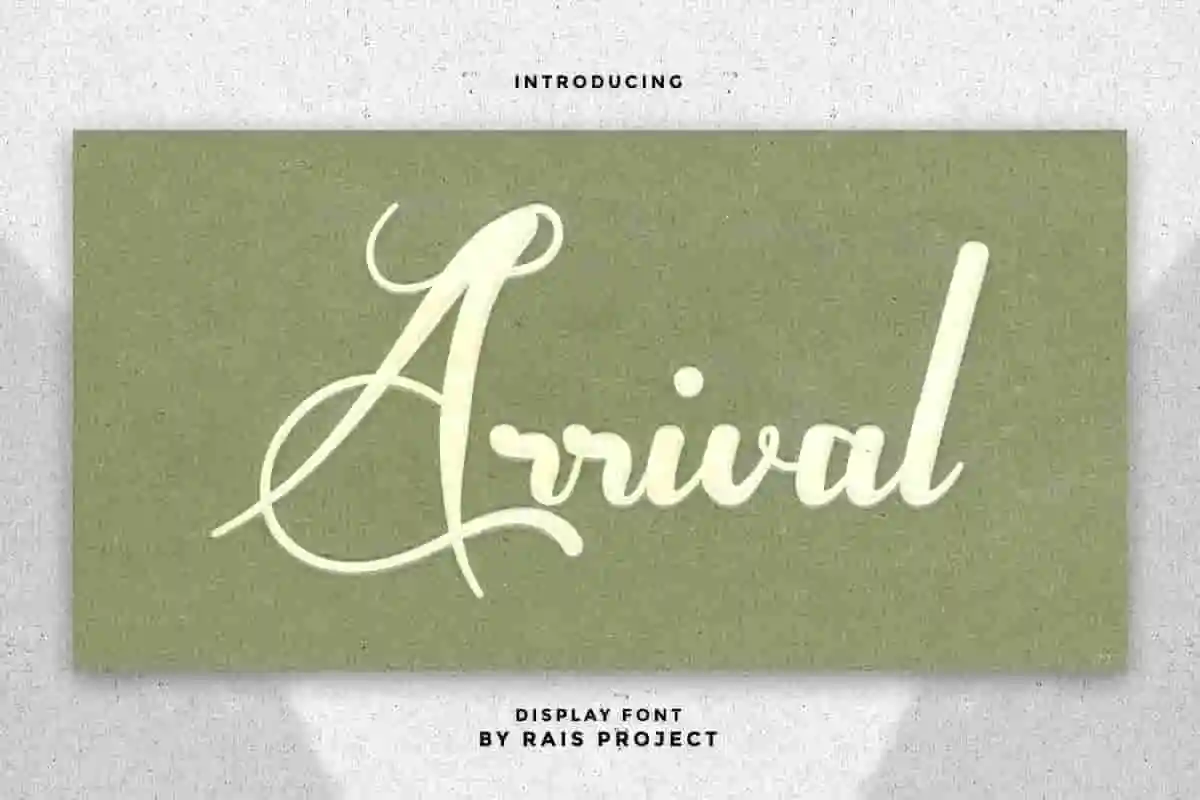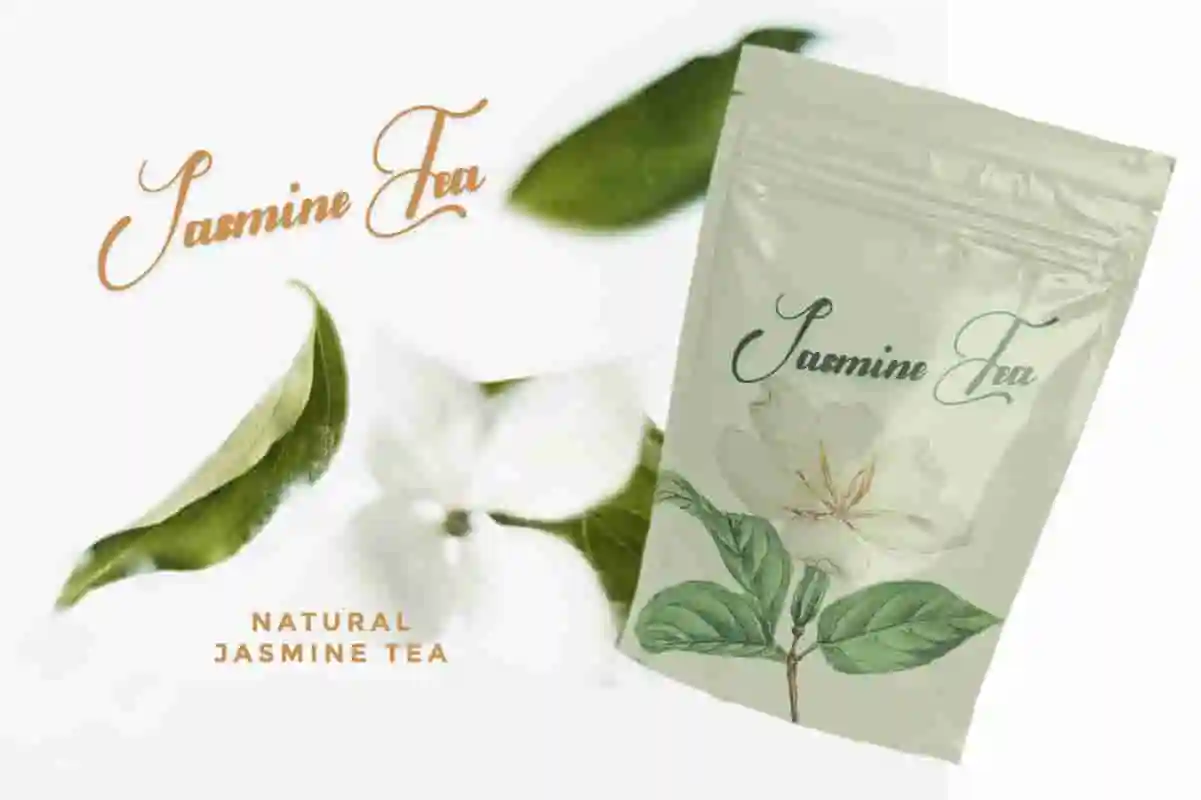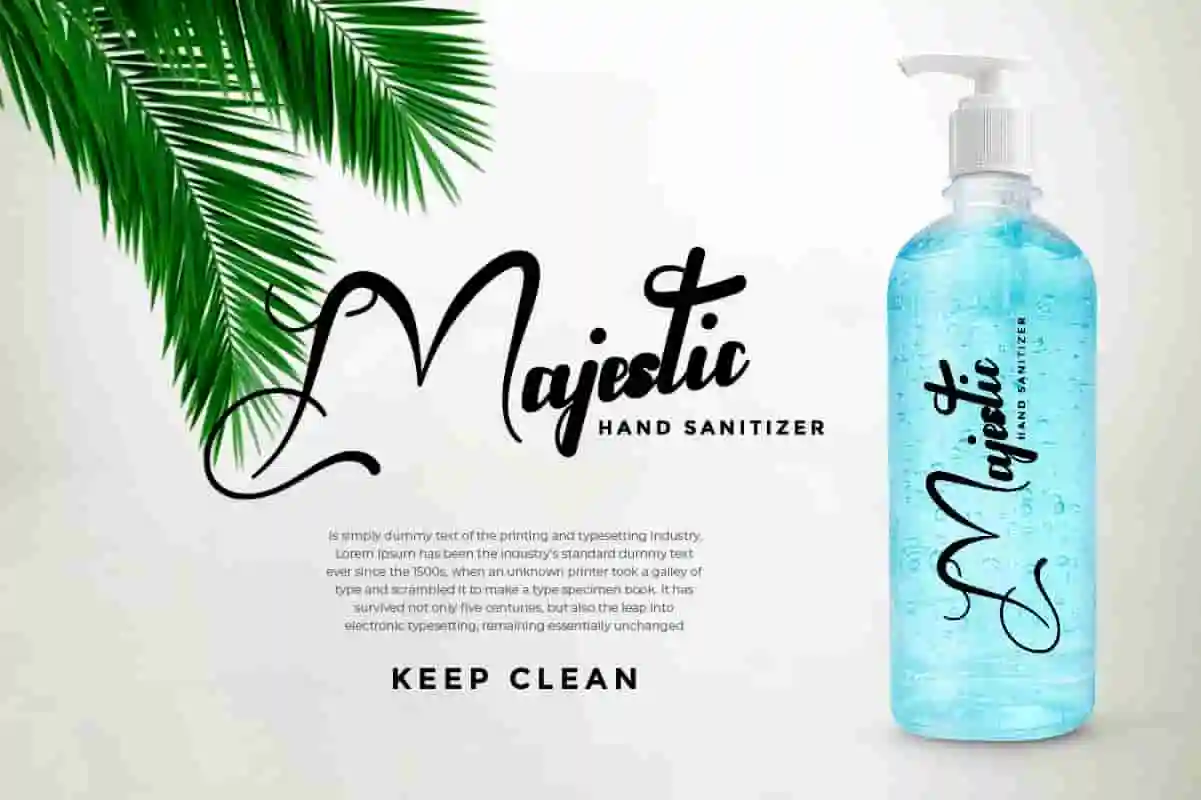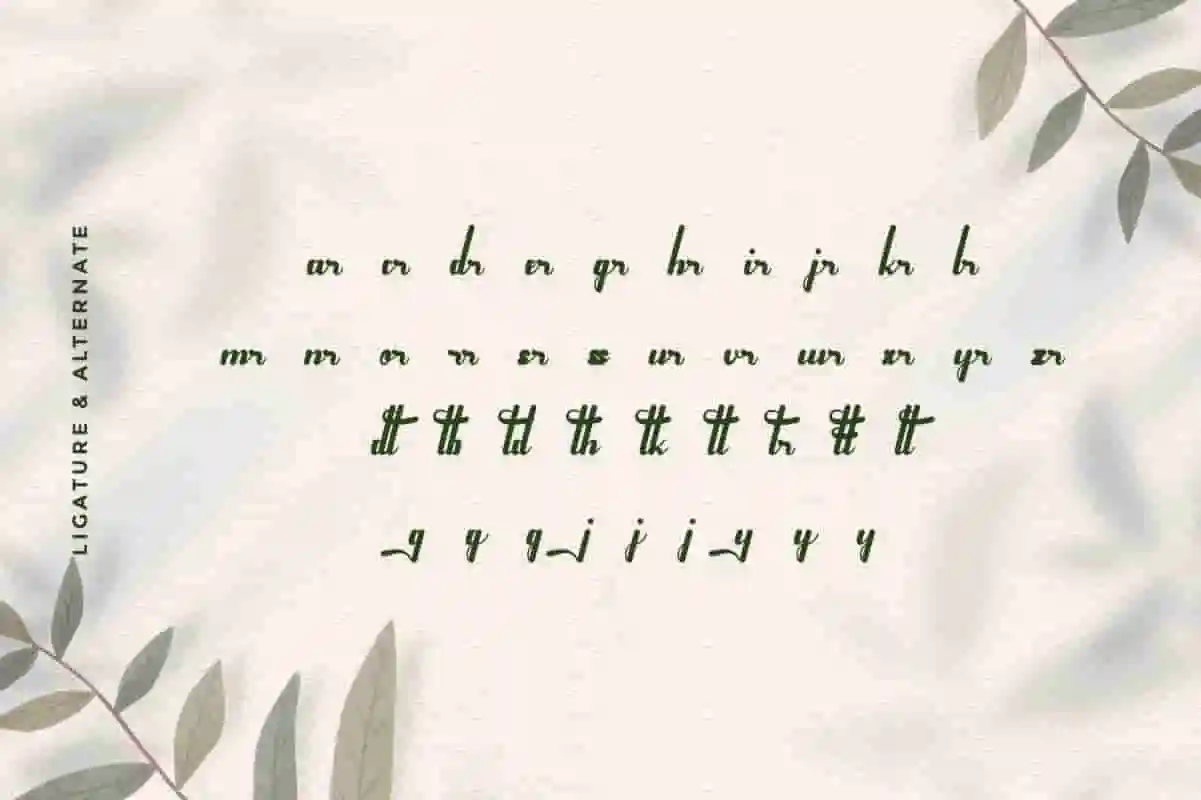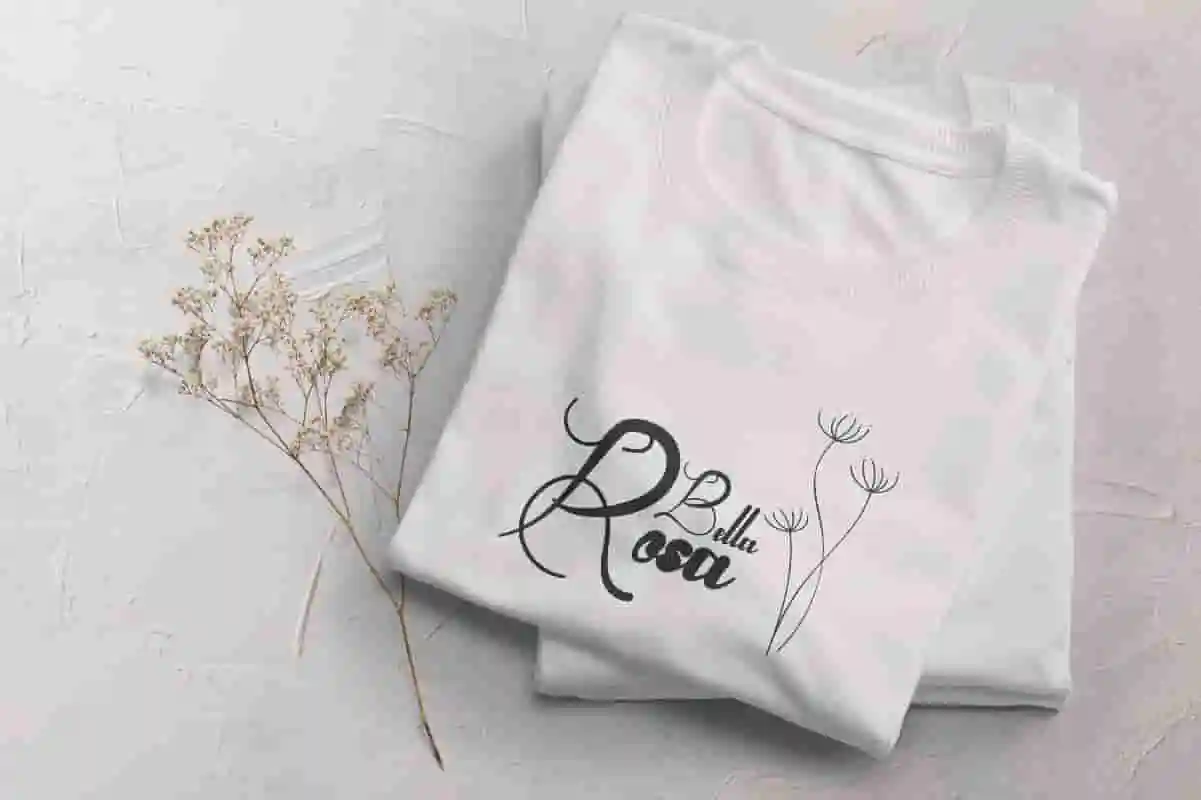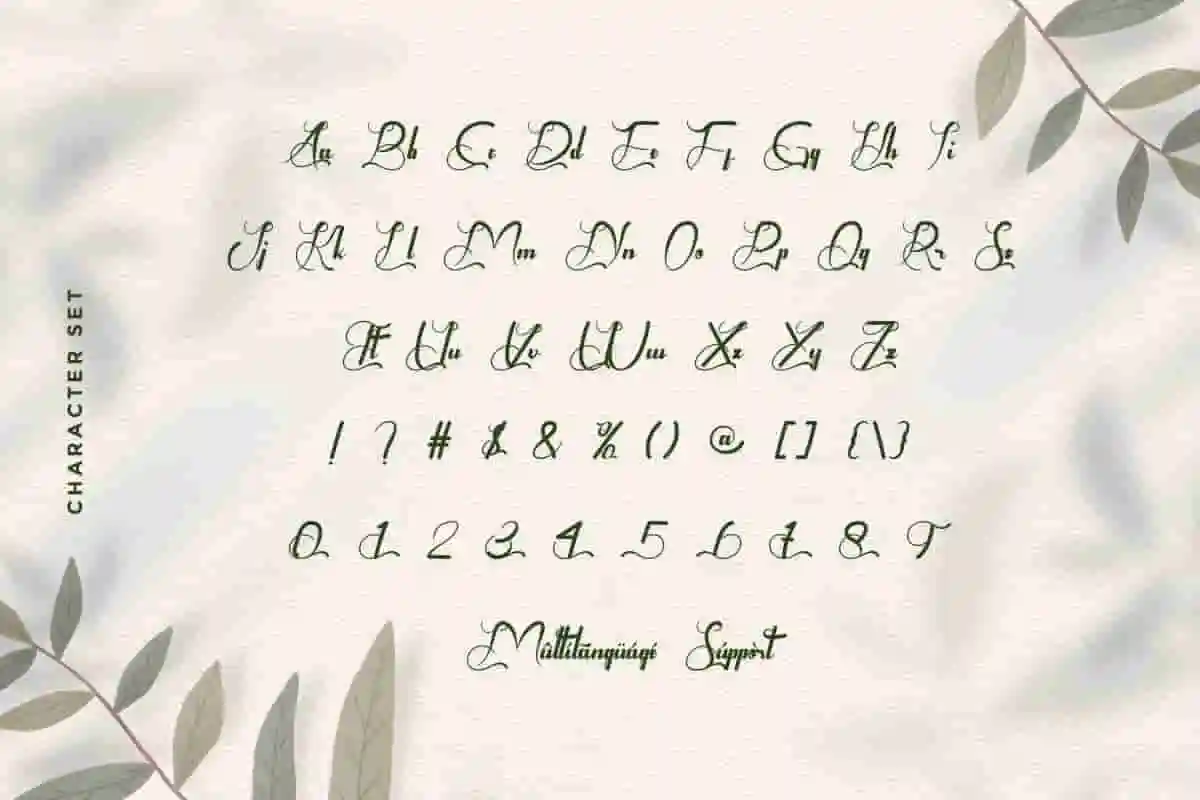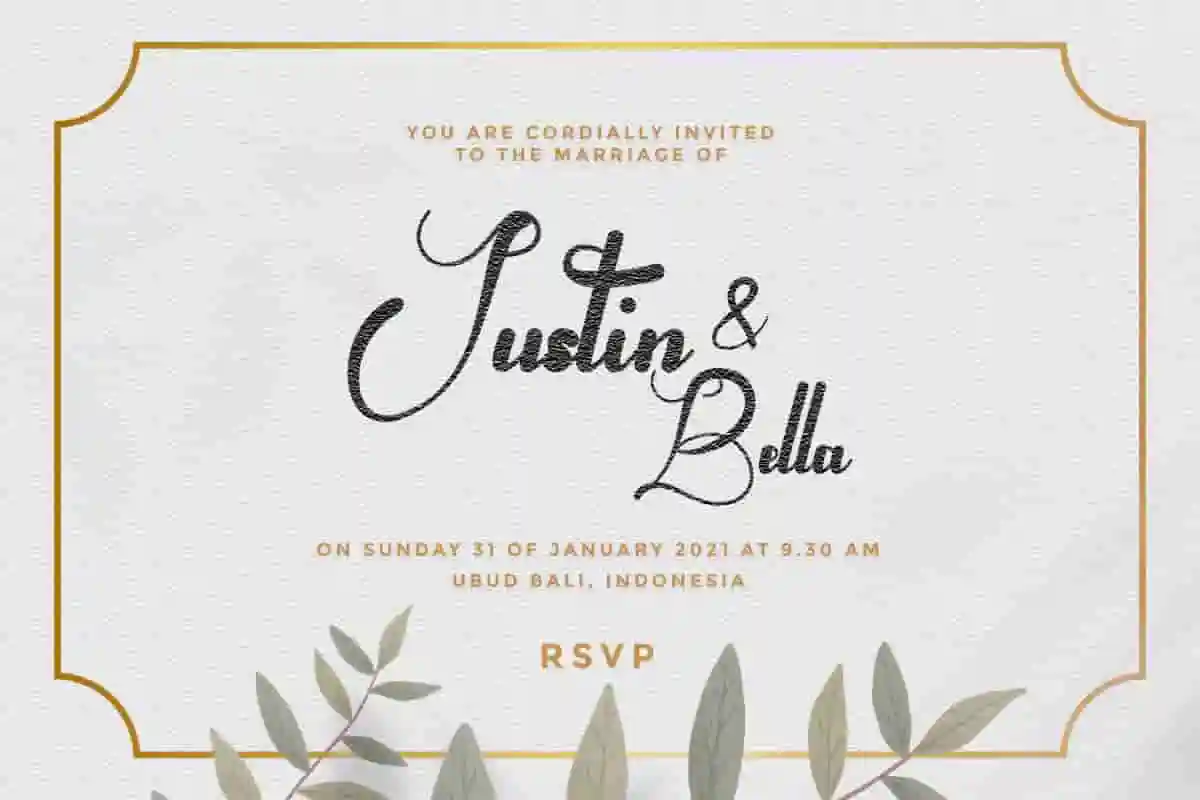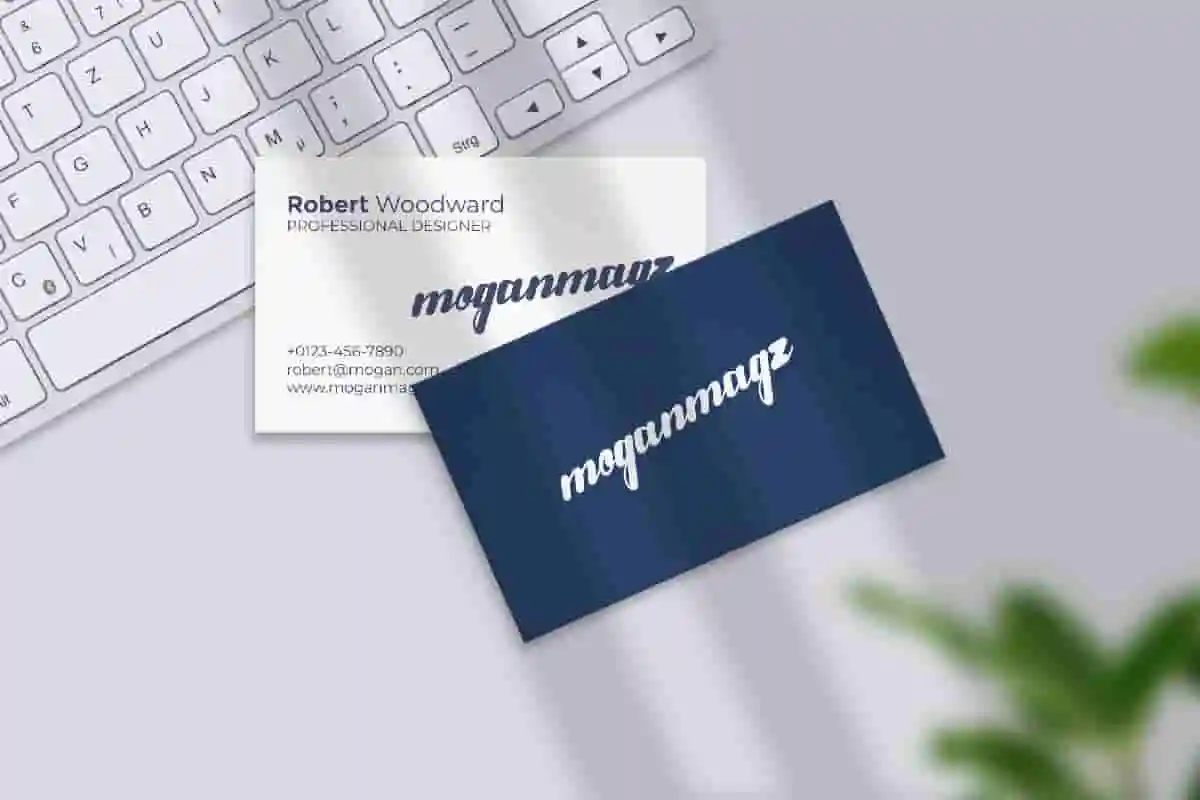
Arrival Calligraphy Font
Arrival Font is a unique Calligraphy Font by RaisProject. With exclusive characters, it will be awesome for any your special projects including : invitation, weddings, promotion, events, branding, advertising etc
Arrival Calligraphy Font  made in Indonesia by Lukman and Sarah for RaisProject. The font handcrafted With beautiful characters, it will be stunning for any your special projects including : weddings, promotion, events, branding, advertising, magazine, shopping, signage, invitation, stationery, social media posts, product packaging, product designs, label, photography, watermark or and any projects that need calligraphy handwriting style. You will get: